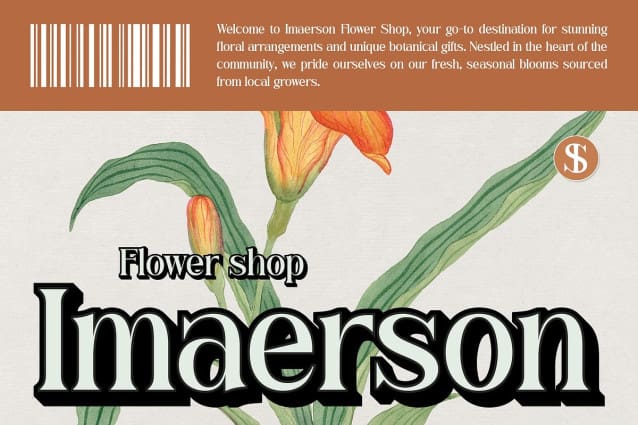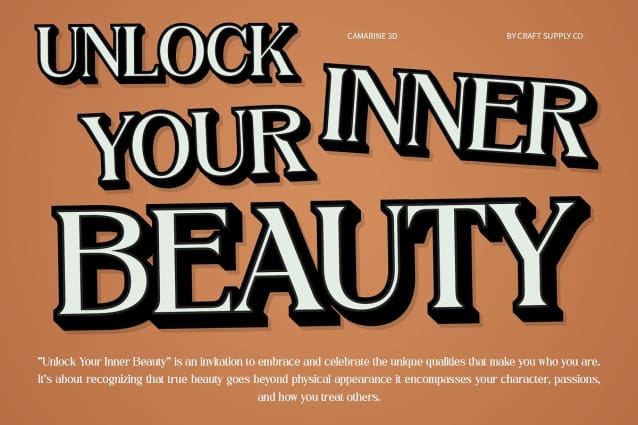
Camarine 3D Font
Camarine 3D Font is a modern serif font characterized by its clean and minimalist shape, emphasizing fine lines and balanced proportions. The sleek design offers a refined aesthetic that caters to contemporary tastes, making it a perfect choice for projects that require both clarity and style. The minimalist approach not only enhances readability but also elevates the overall design, ensuring a sophisticated look that appeals to a wide audience.
Dynamic 3D Effect for Visual Depth The innovative 3D effect applied to Camarine adds visual depth, transforming the font into a striking focal point in any design. This dimensional aspect creates a captivating impression, allowing your text to stand out and draw attention, whether in print or digital formats. The interplay of light and shadow enhances its modern appeal, making it suitable for various applications where engagement is key.
Versatile for Diverse Applications Camarine 3D is versatile and adaptable, fitting seamlessly into various design contexts. Whether used in branding, advertising, or editorial work, this font delivers a professional touch while maintaining its elegance and aesthetic appeal. Its ability to convey sophistication makes it an excellent choice for high-end branding, stylish advertisements, and polished editorial layouts, ensuring your message is communicated effectively and attractively.